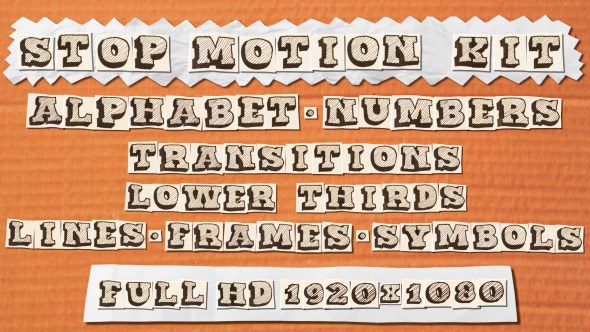
Here is a great Stop Motion Typeface II which will give cool kids / cartoon / travel / business / restaurant style for your promo / advertising. Project contains full alphabet of animated letters, numbers and some extra symbols. You can also create own signs and change colors and size.
• The full English alphabet from A – Z
• Numbers from 0 – 9
• Extra characters . + – = ? !
• Each character individually animated